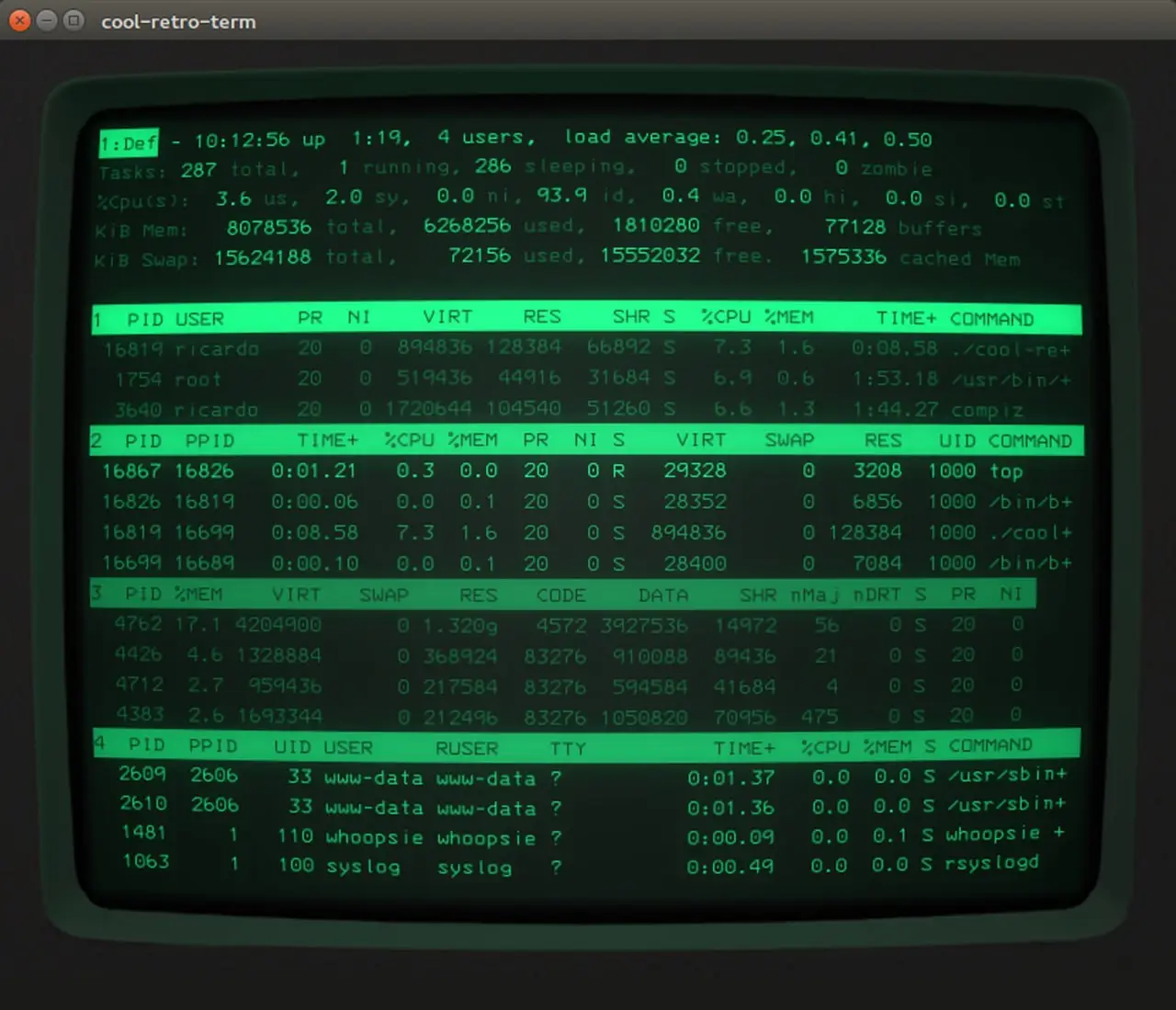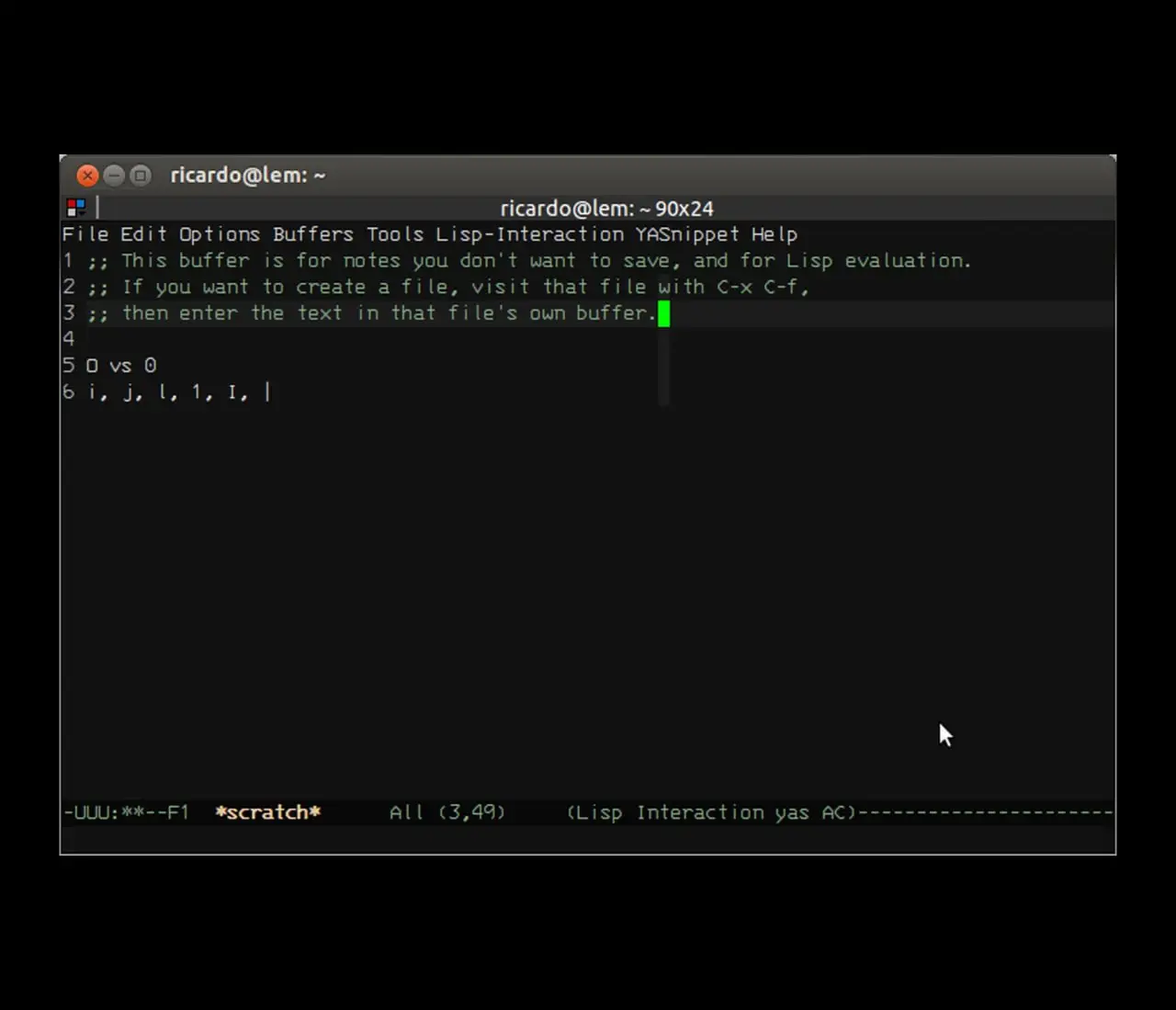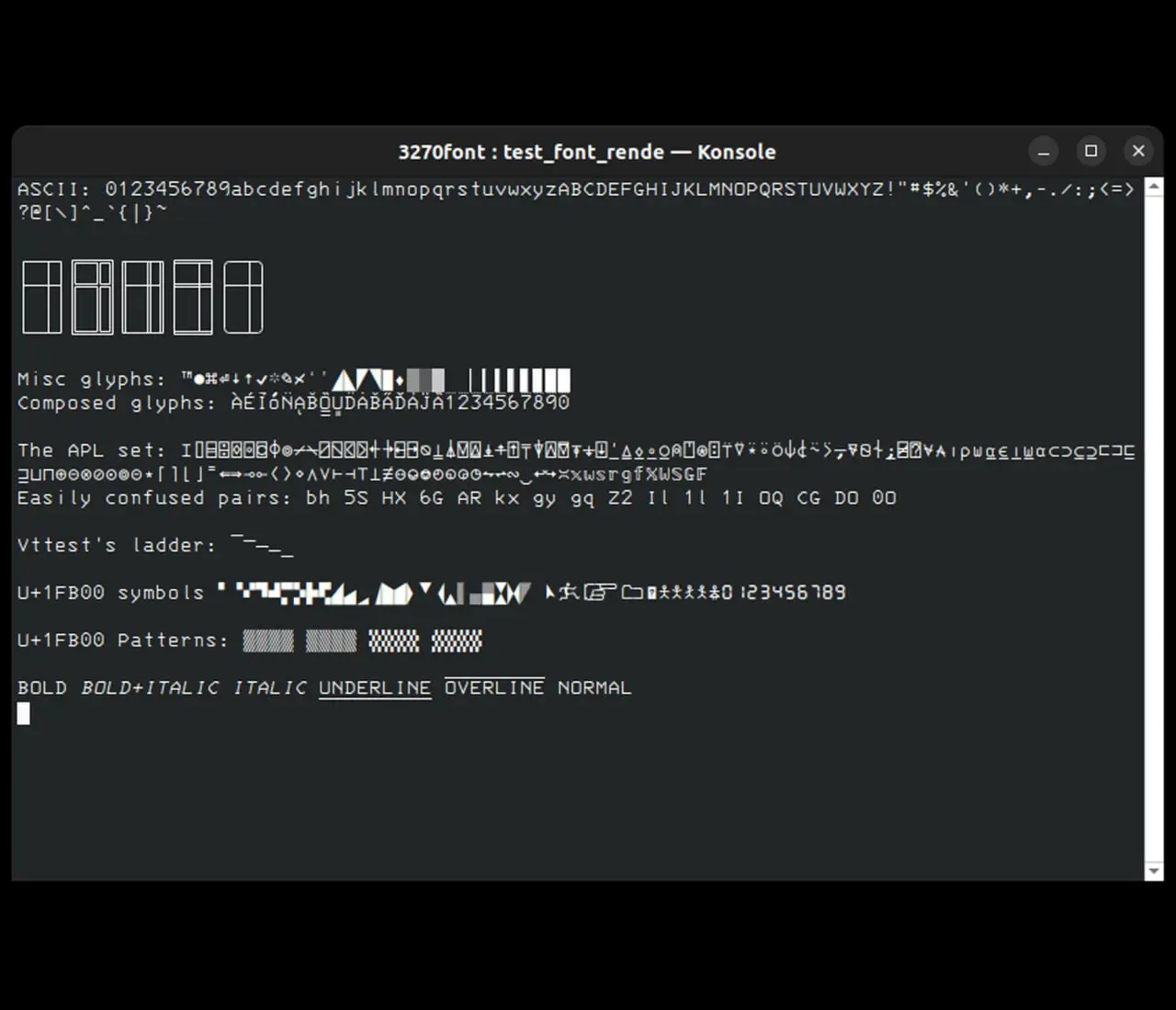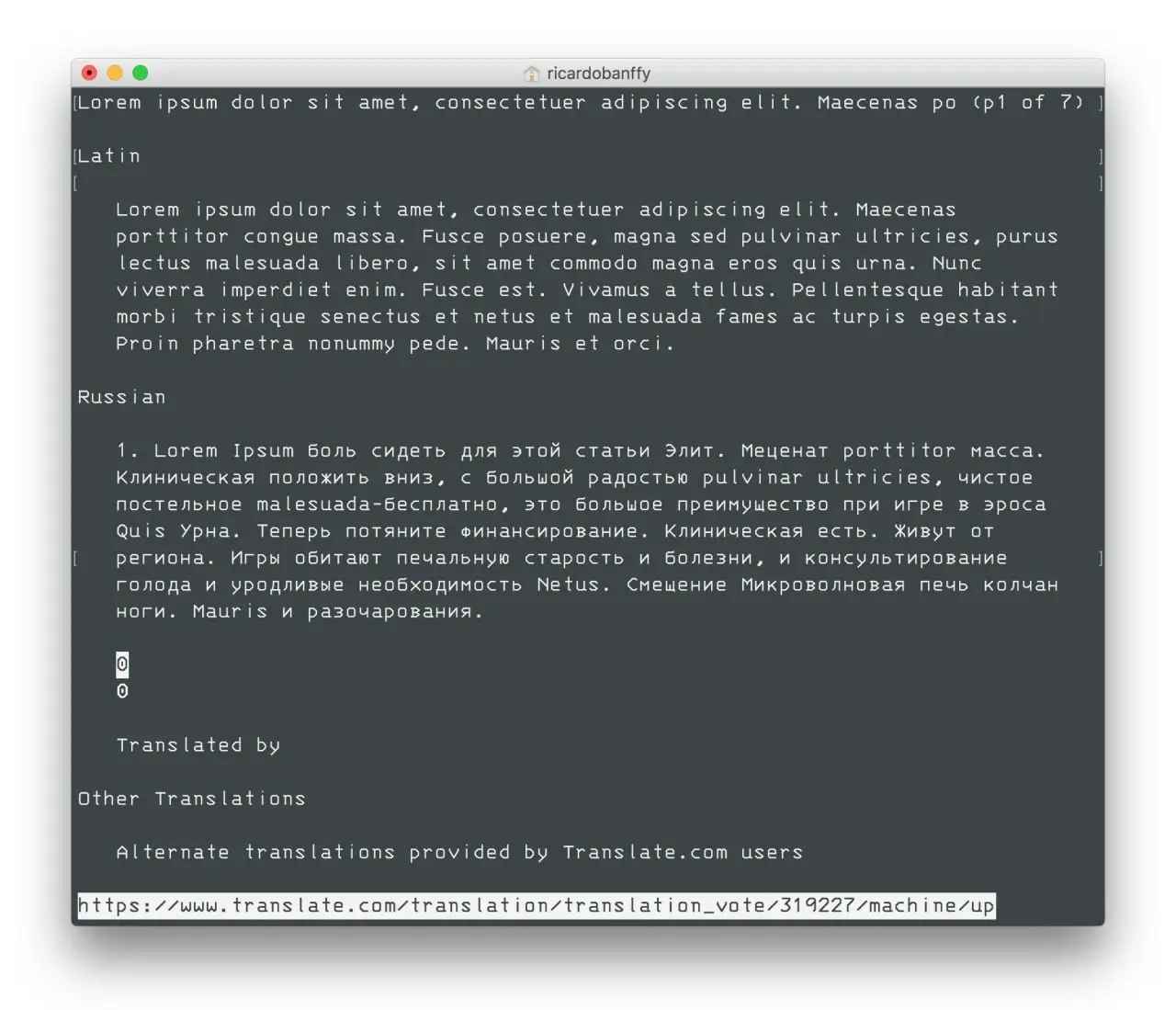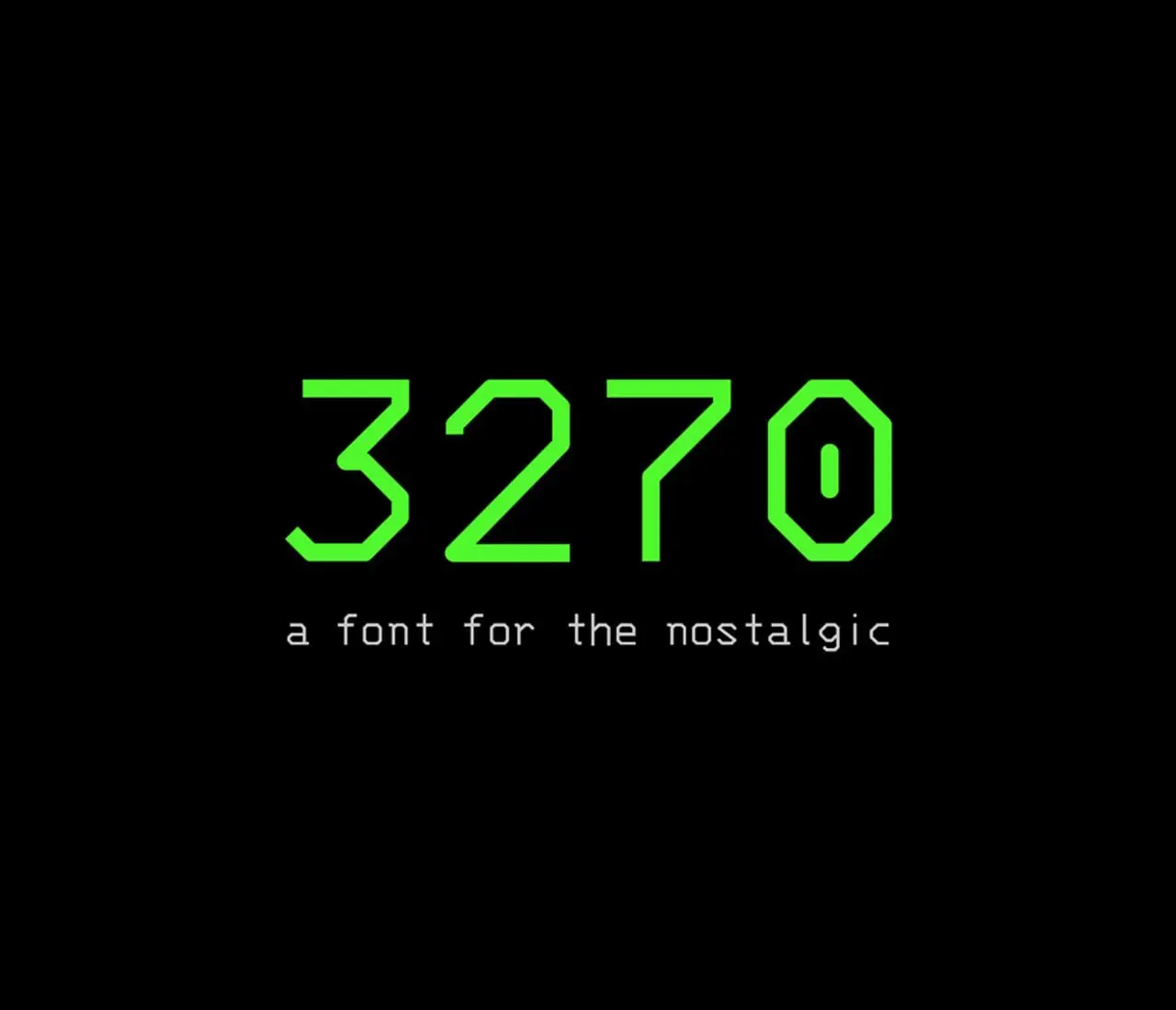
The 3270 Set Of 3 Fonts by Ricardo Banffy offers a unique collection of typefaces designed to elevate your creative projects. This set includes three distinct font styles, each crafted with precision and attention to detail.
These fonts are perfect for branding, logo design, web projects, and print materials. Their versatility makes them suitable for both digital and traditional media.